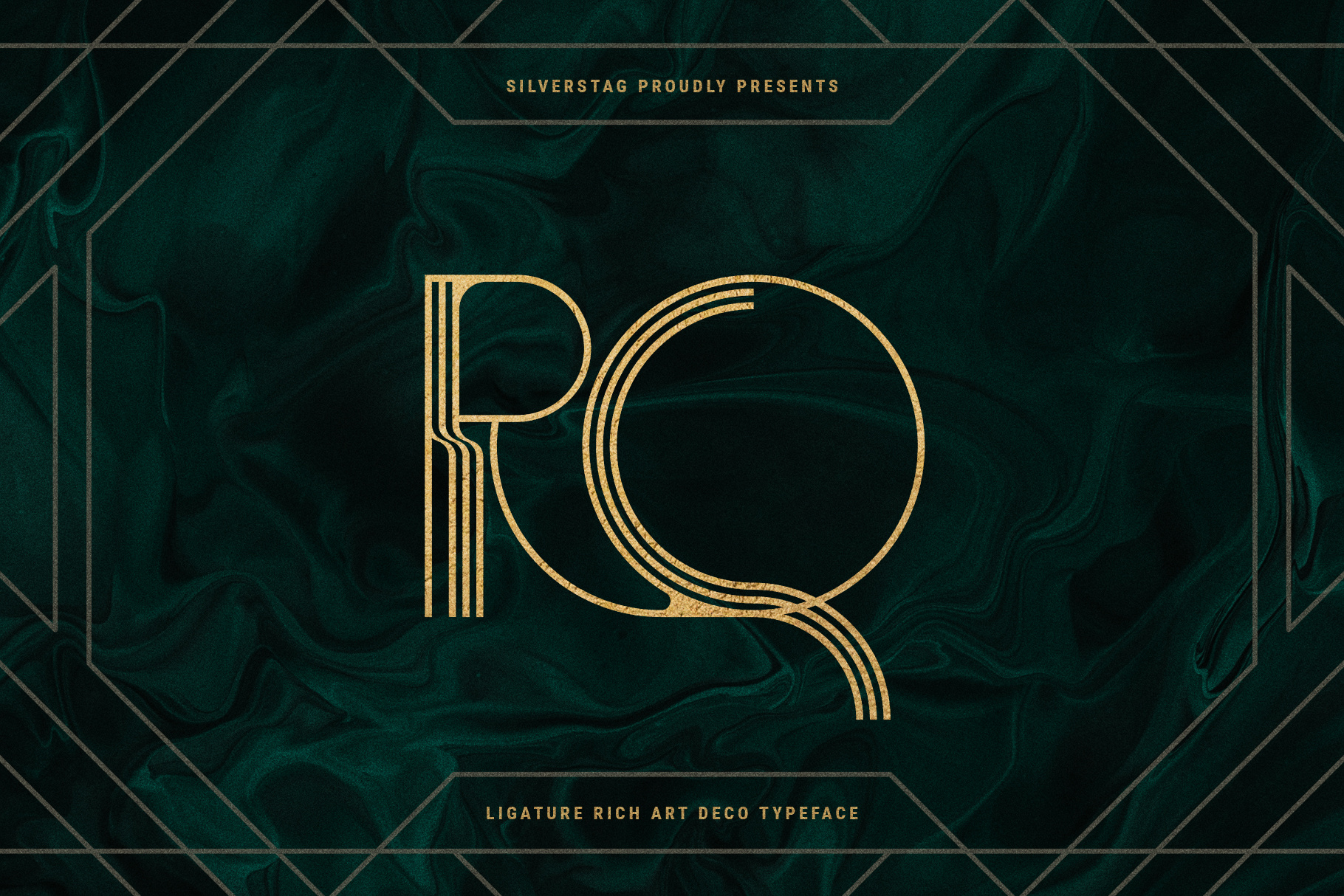
BOGART Deco - Ligature Rich Typeface
If you've been looking for an Art Deco font that is perfect for 2022, look no further. BogArt Deco is my take on how a complete and unique art deco typeface should look like. It was inspired by art deco, a style of visual arts, architecture and design that first appeared in France. It is a geometric stylish font full of alternate letters & ligatures - over 270 of them.